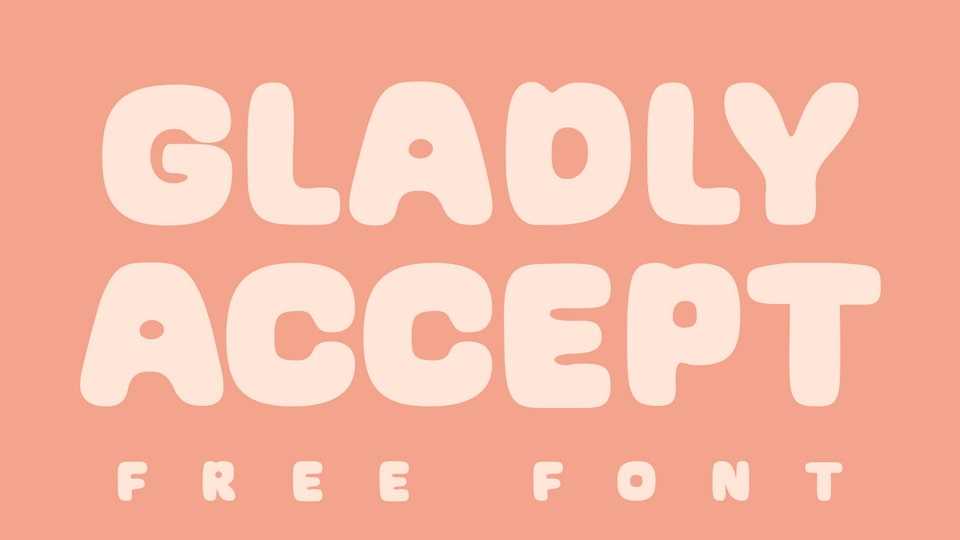
Download Gladly Accept font, a joyful, fun, and thick lettered display typeface. Gladly Accept embodies playfulness and boldness and is the perfect choice for any children’s activity or school project.
Designer: Niskala Huruf